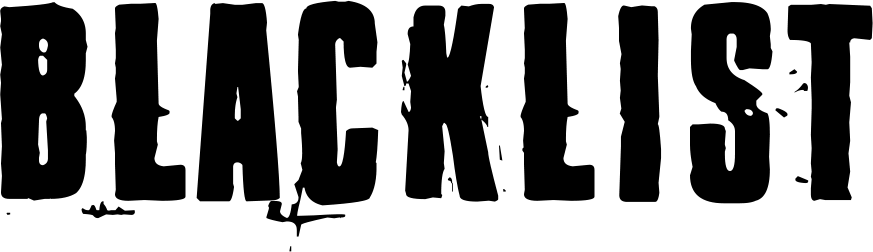
Blacklist Font
Blacklist font offers a grunge and vintage style for action movie poster enthusiasts. This grunge block font has no lowercase letters, but it is a great and smart choice for designing traffic signs.
Also, if you are a designer of military and racing T-shirts, you can create many T-shirts with different emotional themes with this font. Do not hesitate to use this tall and heavy font for creating guns and army packaging.